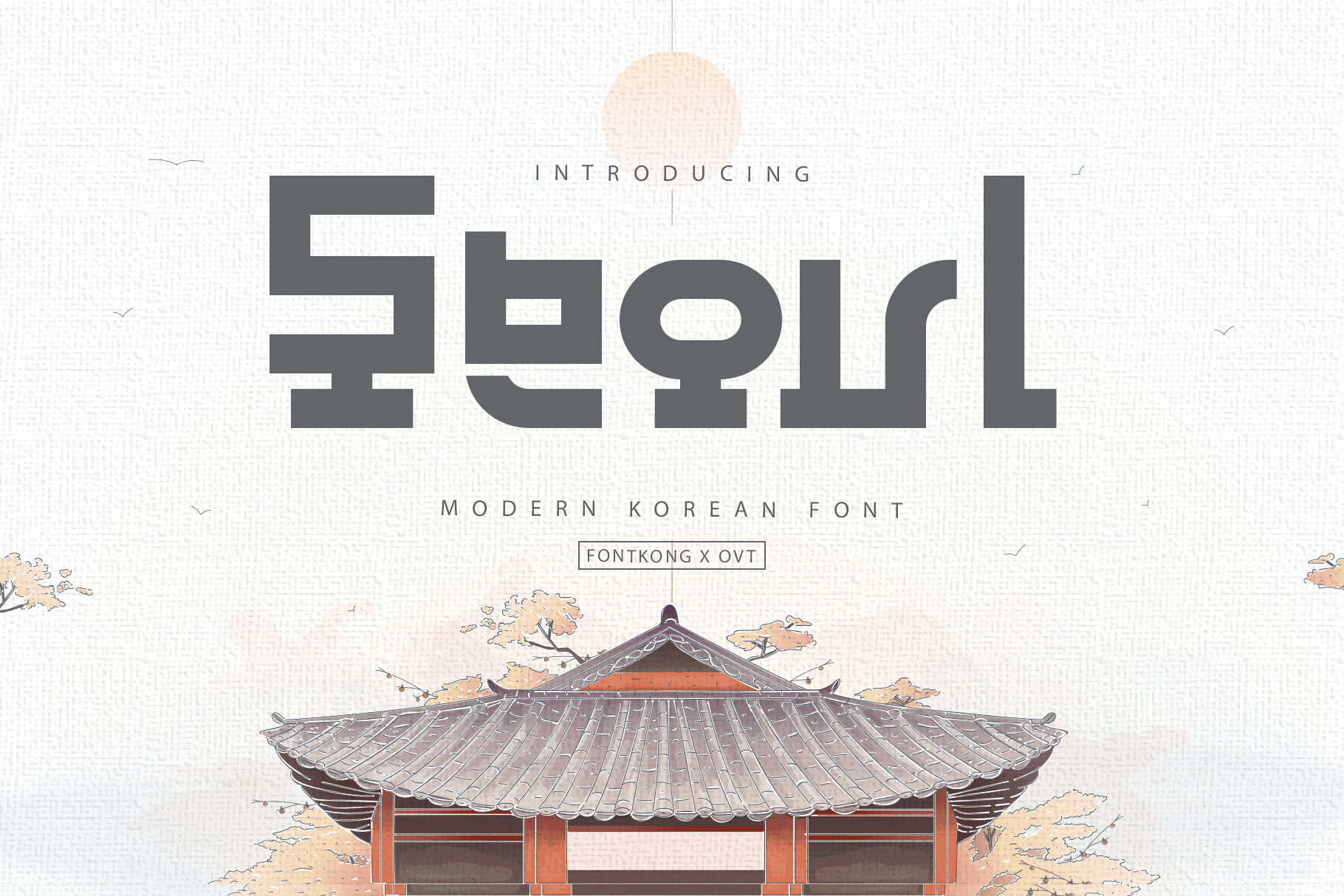
Seoul - Modern Korean Font
Introducing "Seoul," a modern Korean font that seamlessly blends elegance and contemporary style. Perfect for projects that require a touch of sophistication with a modern twist, "Seoul" brings a refined and polished look to your designs.
"Seoul" features a full set of Korean characters, along with a comprehensive collection of Latin characters, numerals, punctuation, and multilingual support. This ensures versatility and functionality for various design needs, from editorial layouts to branding and digital media.
Designed with clean lines and a sleek aesthetic, "Seoul" offers a harmonious balance between traditional Korean typography and modern design elements. This font is ideal for websites, logos, packaging, posters, and more, adding a unique and professional touch to any project.
"Seoul" is the perfect choice for designers seeking a modern Korean font that exudes both elegance and contemporary flair.